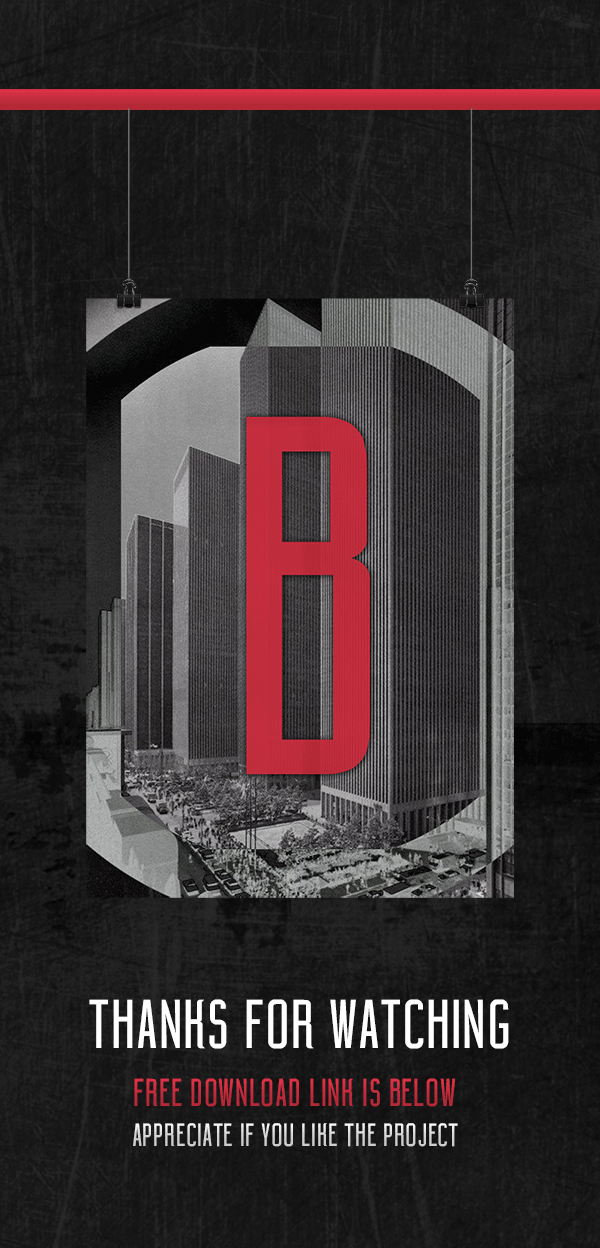
Famous Building Font Design References
“Build” Font Was Created From The Isometric Blocks Of Lines And Three.
Web Designed By Leonardo Gubbioni, Building Is A Font Character Title, With A Strong Visual Impact.